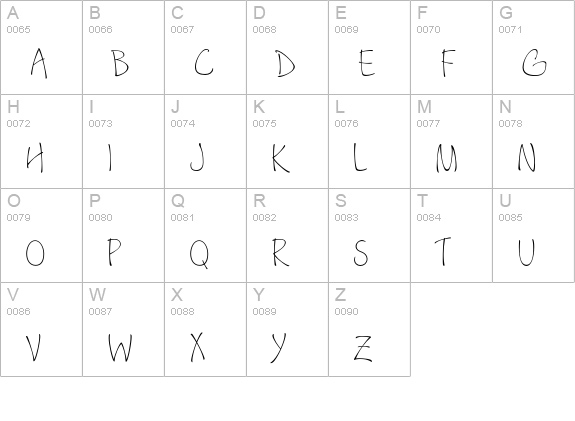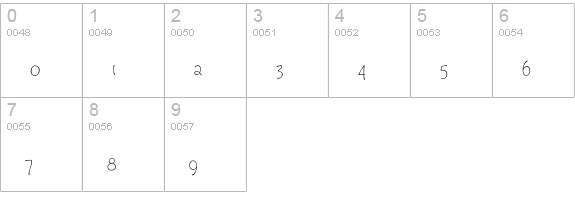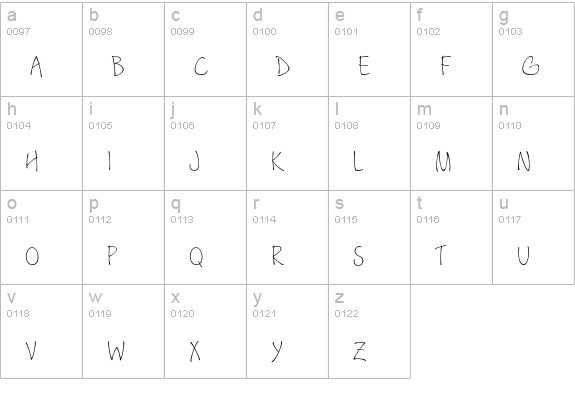
Mesa-RegularTallCaps Font Details
Mesa-RegularTallCaps is a stylish and versatile font that exudes elegance and sophistication. With its tall, slender letterforms and clean lines, this font is perfect for creating eye-catching headlines, logos, and branding materials. The sleek design of Mesa-RegularTallCaps makes it suitable for a wide range of projects, from fashion magazines to luxury product packaging. The best part? Mesa-RegularTallCaps is available for free download at FontsMarket.com! You can easily add this stunning font to your collection without breaking the bank. So why wait? Enhance your designs with Mesa-RegularTallCaps today and make a lasting impression on your audience.